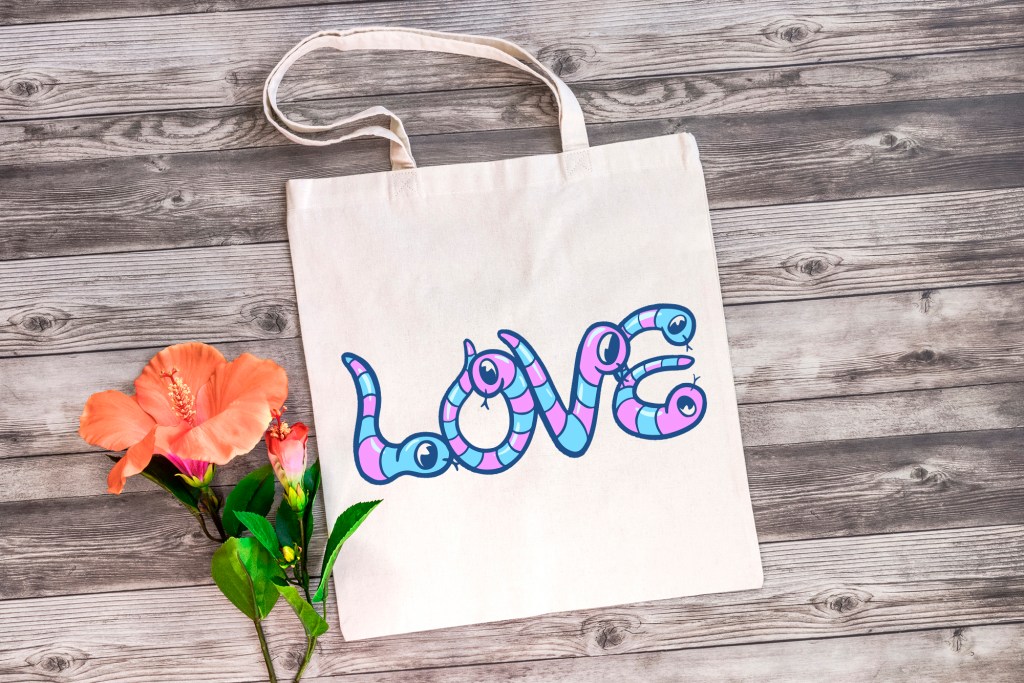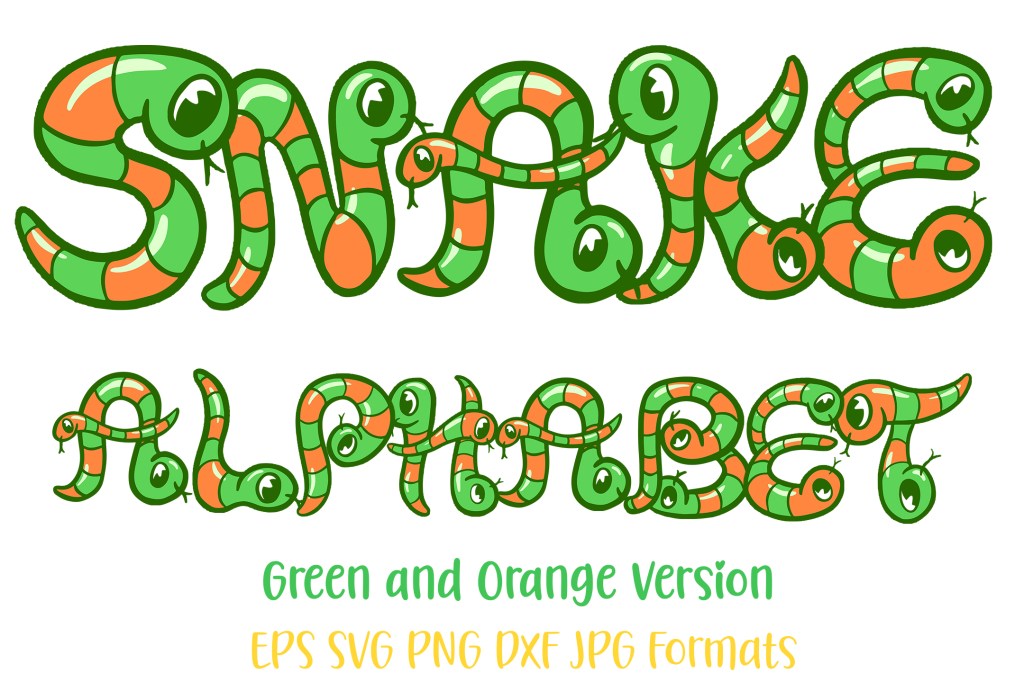
Cartoon Snake Hand Made Lettering Font Type
I’ve created a fun font made of cute cartoon snakes. Great for children’s designs and lettering. I have two versions, one green and orange and the other blue and purple. Find both fonts at Design Bundles and Creative Fabrica, links below
Cartoon Snake Hand Made Lettering Font Type by Squeeb Creative